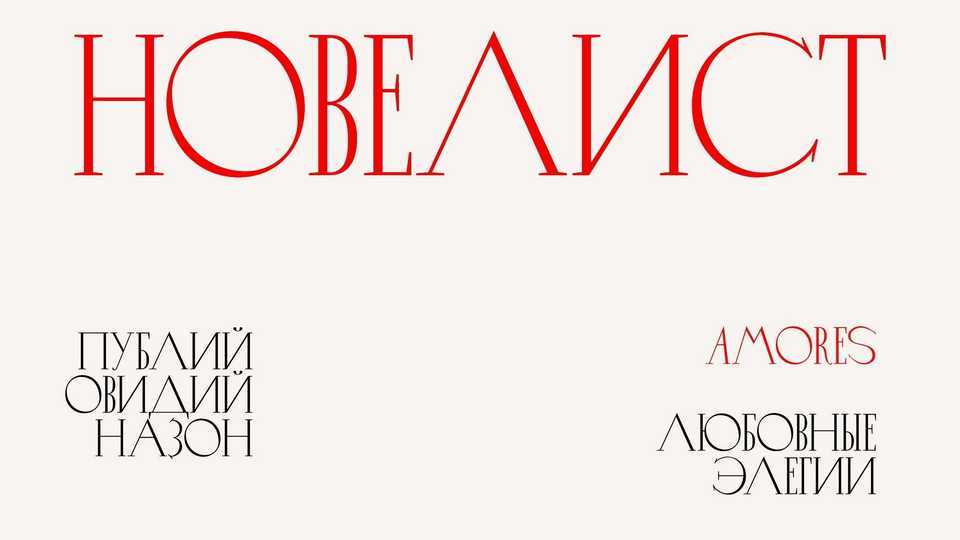
Download Novelist font, a serif typeface created on the basis of lettering by Lev Zbarsky in the design of “Love Elegies” by Publius Ovid Nazon in 1963.
Designer: Alena Krachkovskaya